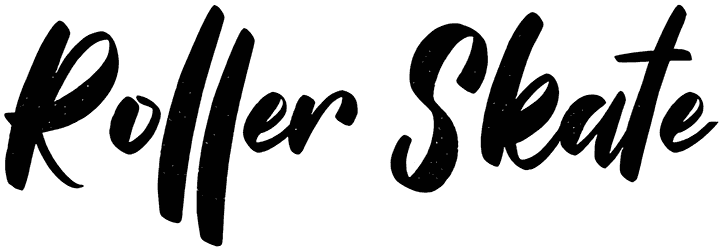
Roller Skate Font
You must have plenty of posters where you want to get people in the mood for a dance party, a vacation at the beach, maybe even a live music show, and anything like that. Any design of yours customized with a lively brush font like Roller Skate is bound to end up full of the energy of youth. Even though it’s a flawless skateboard font in every aspect, it can also be so much more if you just say the word.